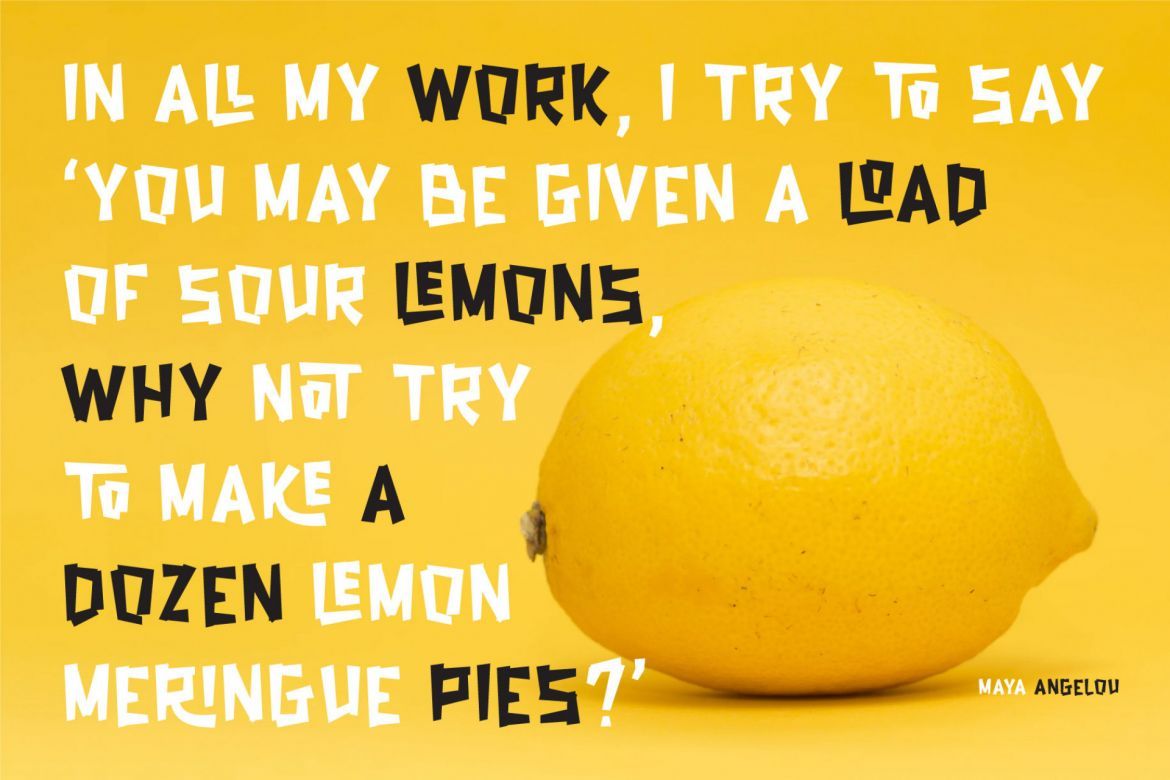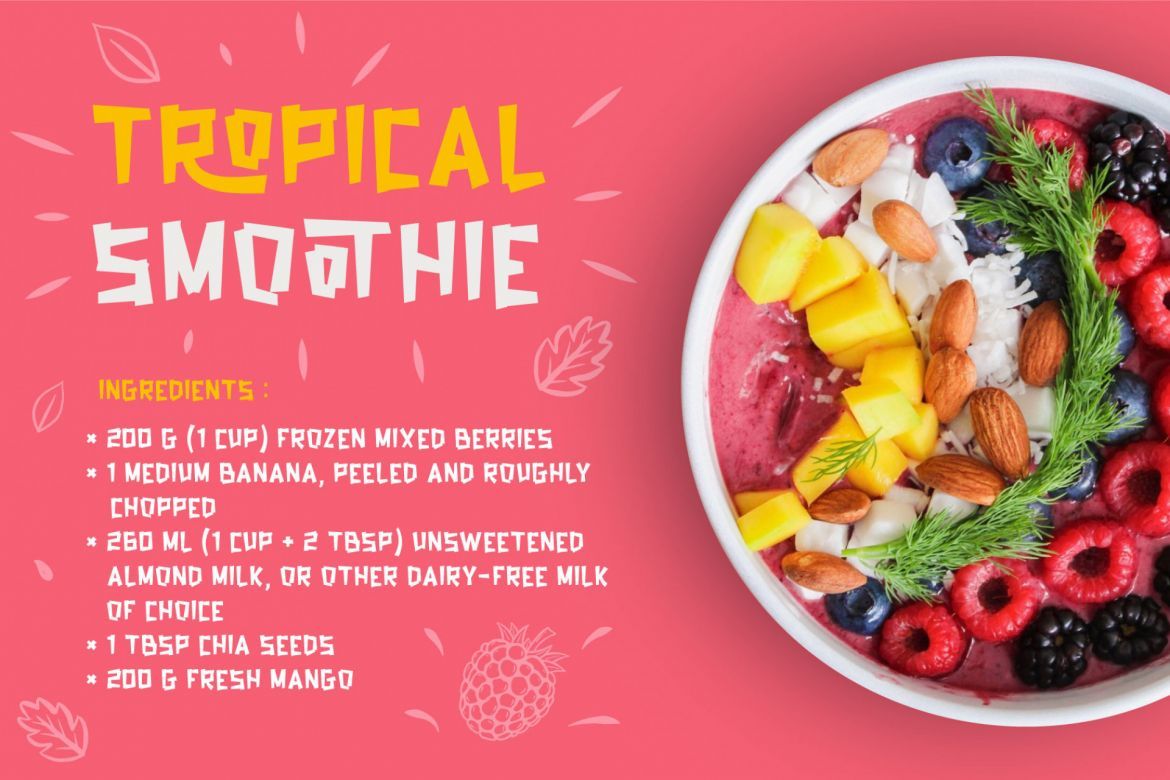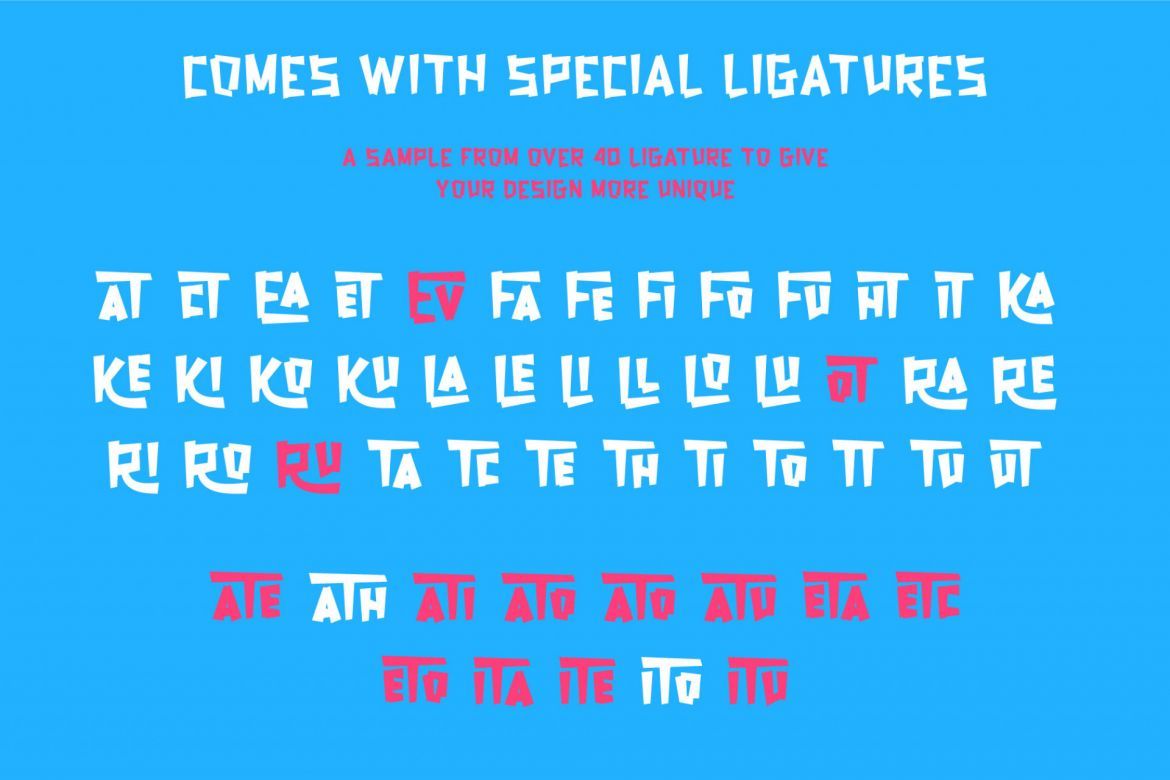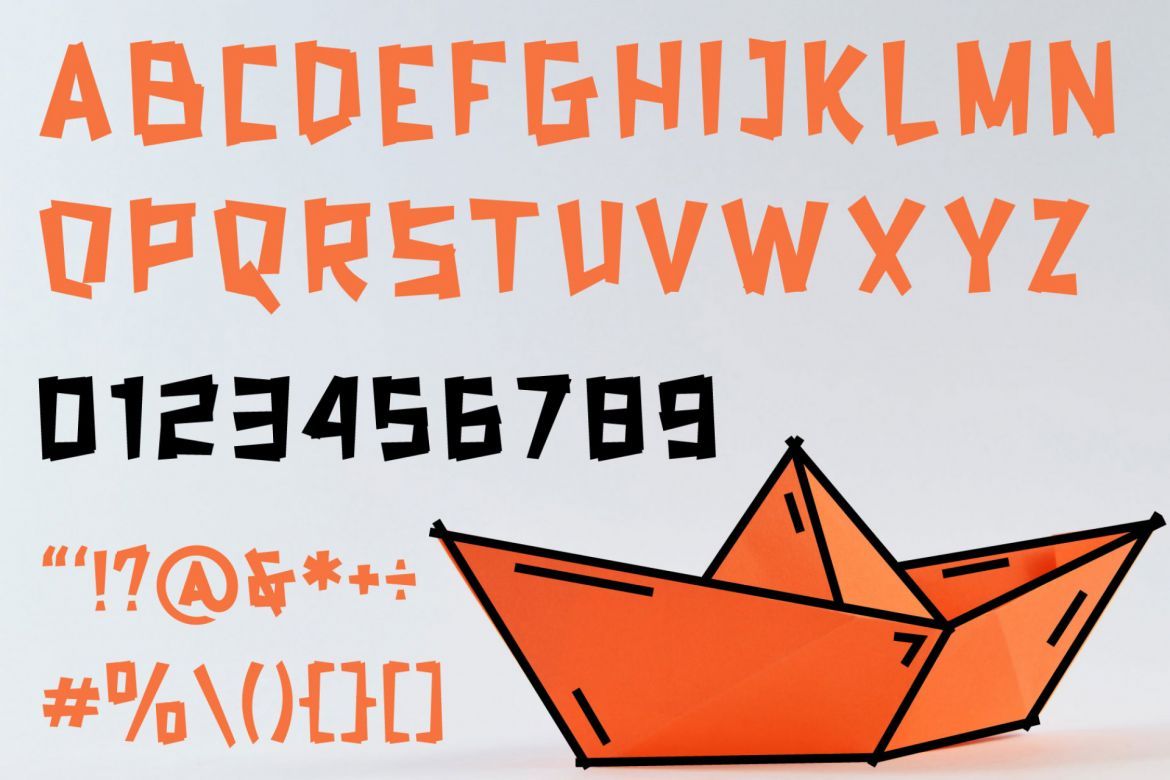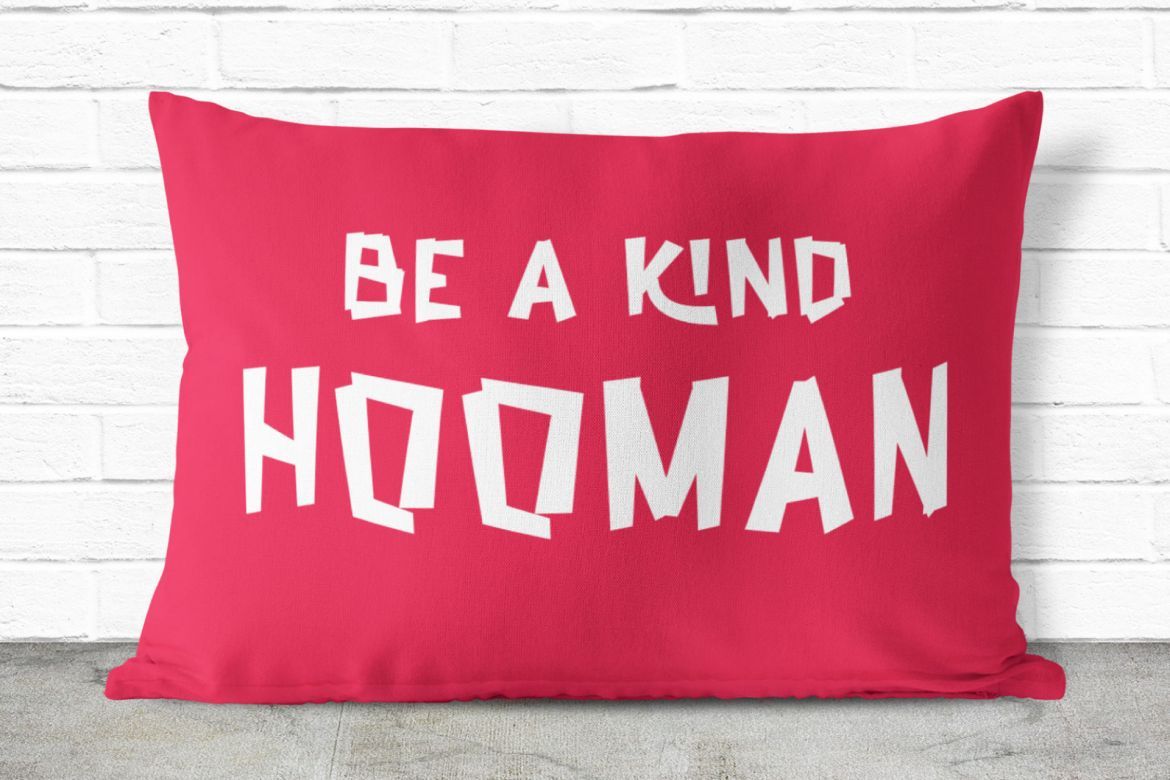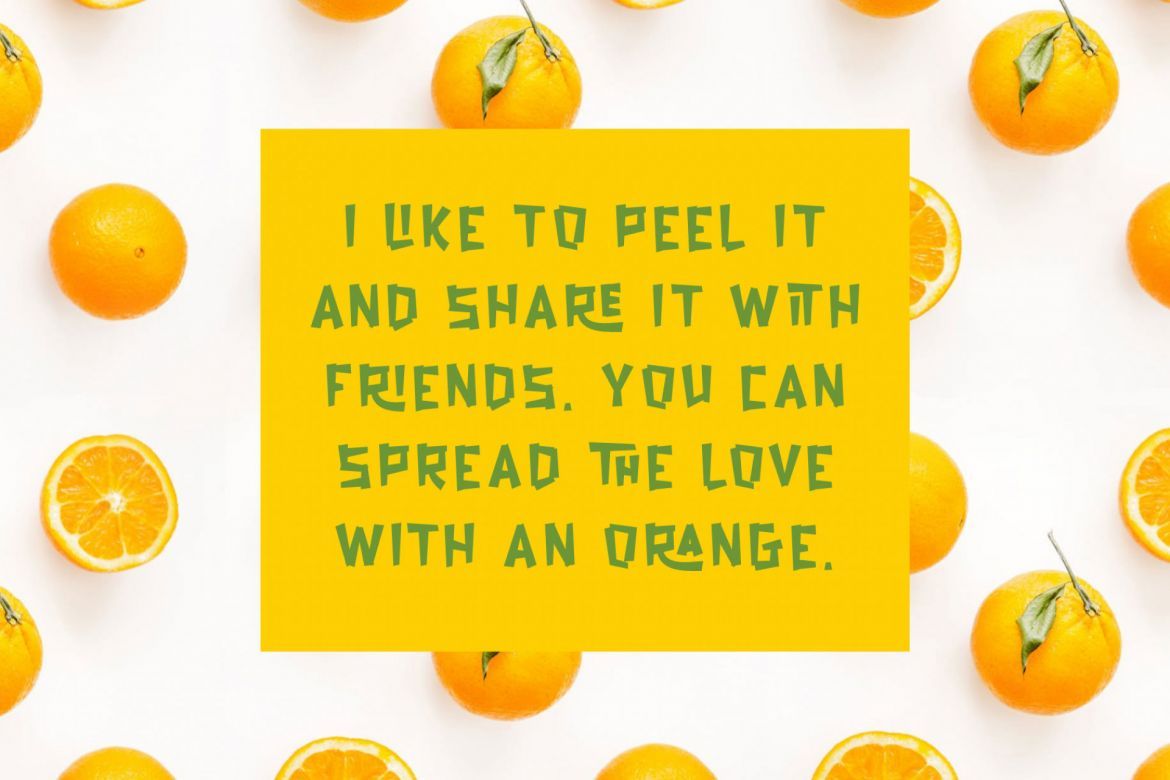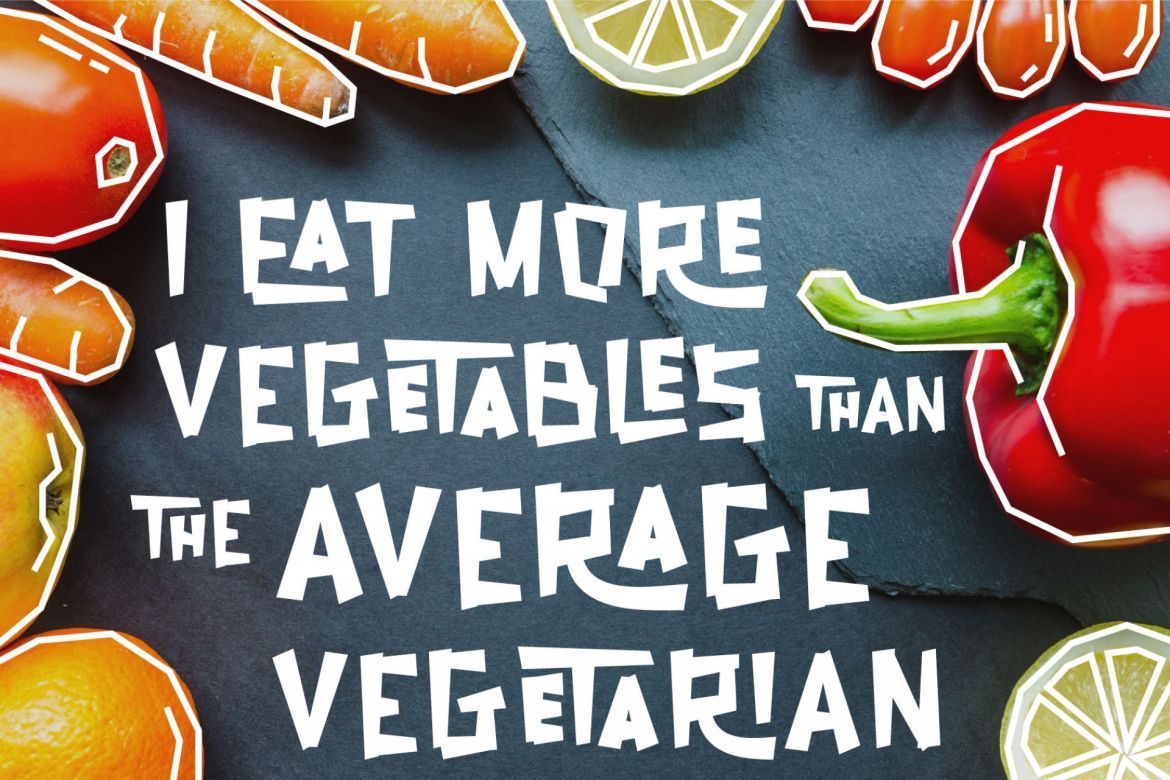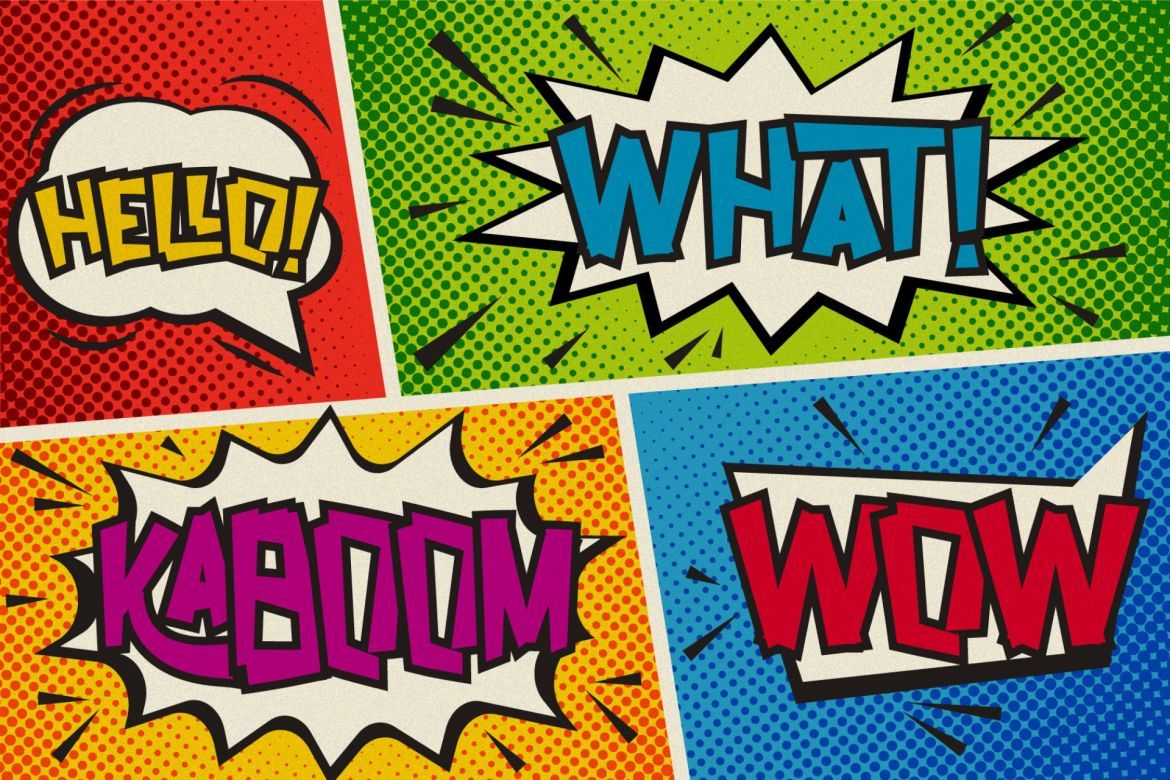
Natured - Modern and Fun Typeface
Natured is a Fun, playful, bold and fun display typeface. This typeface will brings joyful and happiness to all of us. This typeface best suit for display, heading, text, print, branding, signage, with a lot of ligature that will give your design more unique in any purpose.
• character set a-z
• extra more than 40 ligature
• numerals
• punctuation